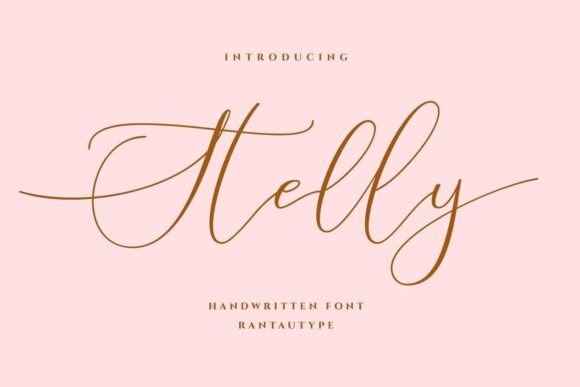
Feast your eyes on Stelly Font, the epitome of modern sophistication in the realm of script fonts! This remarkable creation from the talented RantauType is not just a collection of letters; it's an artistic masterpiece that transforms your designs into captivating expressions of elegance.
With its fluid and graceful letterforms, Stelly Font dances across your screen like a ballerina, effortlessly adding an aura of grace and refinement to every project. Its meticulously crafted curves and distinctive swashes are like tiny works of art, beckoning your audience to immerse themselves in the beauty of your designs.
Whether you're crafting logos that demand attention, branding that exudes professionalism, or wedding invitations that evoke romance, Stelly Font is your ultimate companion. Its versatility is truly remarkable, allowing it to adapt seamlessly to any creative vision.
Experience the timeless appeal of Stelly Font and elevate your designs to new heights. Its enduring beauty will ensure that your creations remain relevant and captivating for years to come. Don't settle for ordinary fonts; embrace the extraordinary with Stelly Font and witness the transformative power of true artistry.